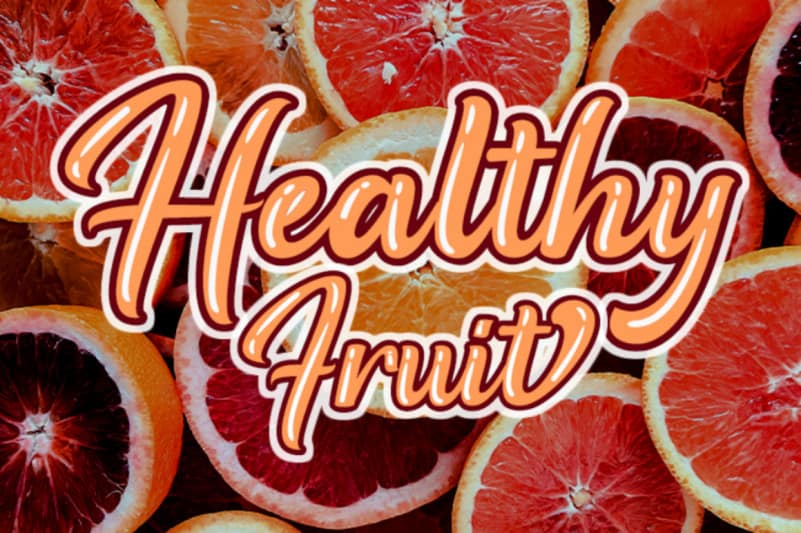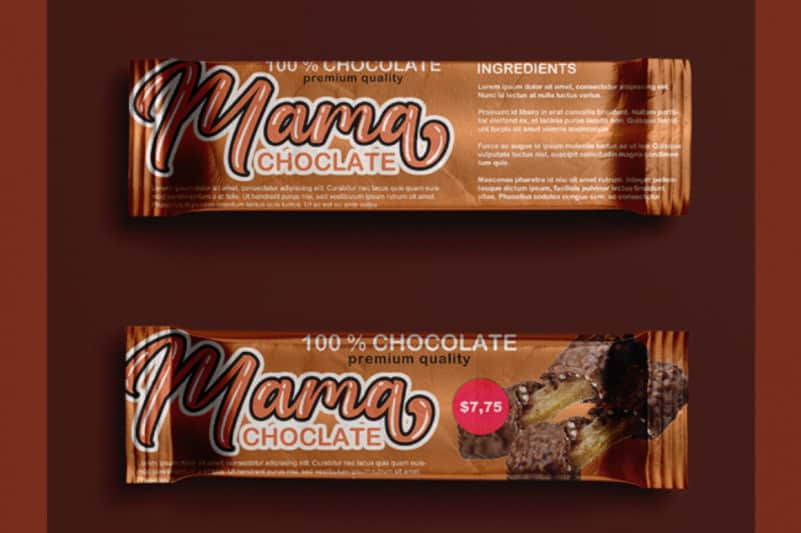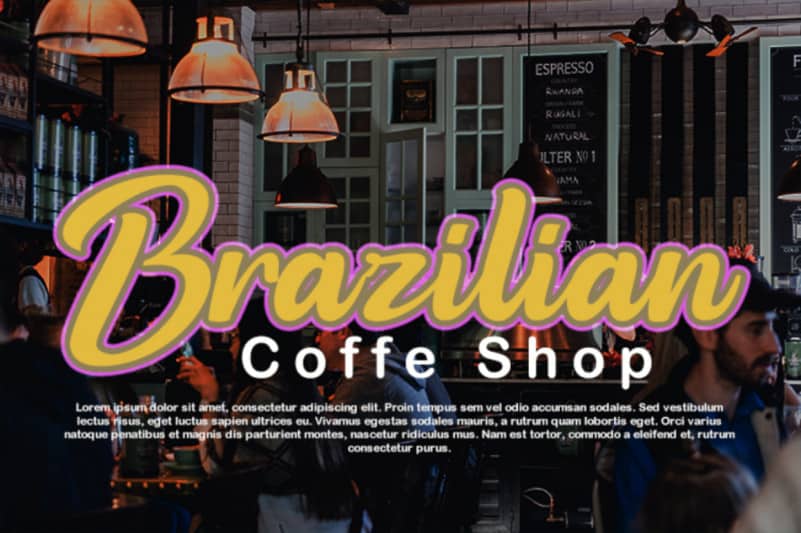
Guttawa Script Font
Guttawa Script Font is a fun and bold handwritten font. Unique and trendy, this font will make your designs stand out!
Introducing Guttawa Font
Guttawa Font is a unique font with several combinations suitable for your logo typeface projects, watermarks, product and company branding, WEB Headers, and many more
Just use your creativity when combining the characters to get the best combination ‘
Ligature
Stylistic set 01-05
Multilingual Support AÀÁÂÃÄÅCÇDÐEÈÉÊËIÌÍÎÏNÑOØÒÓÔÕÖUÙÜÚÛWYÝŸÆßÞþ